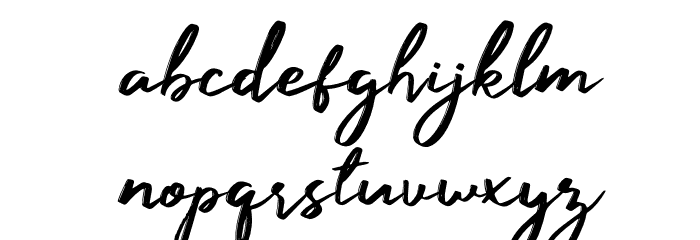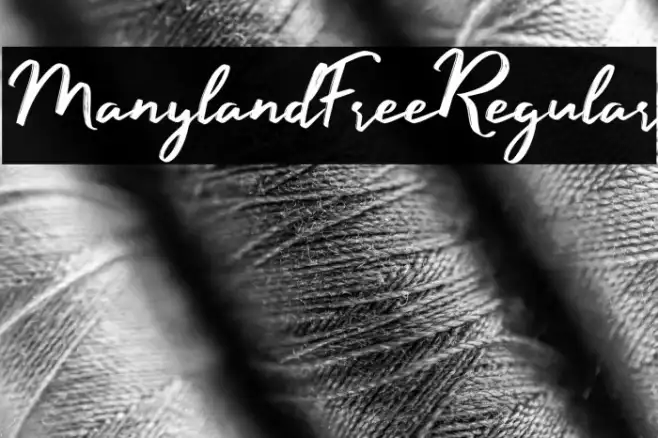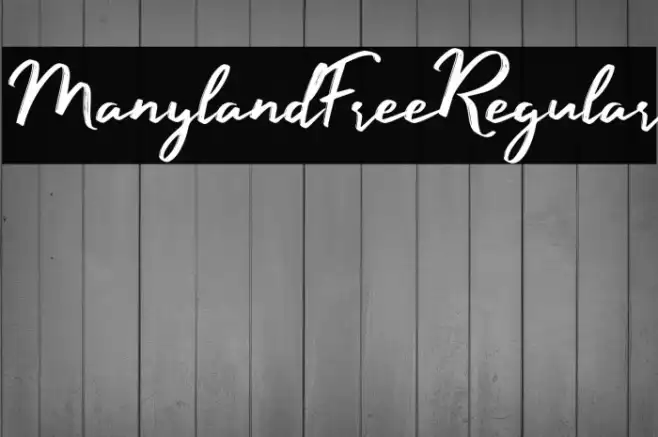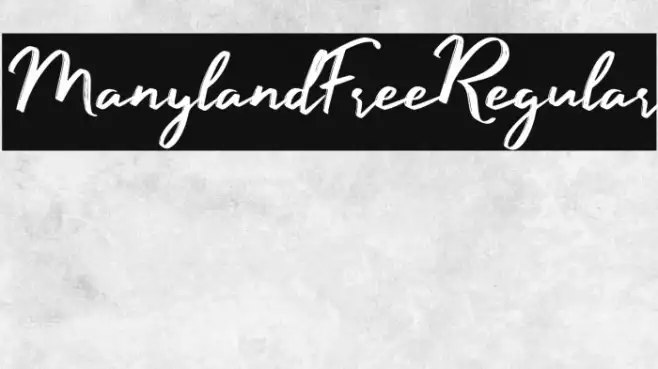
ManylandFree-Regular Font
This font features a dynamic and expressive script style, characterized by its fluid and elegant strokes. The uppercase letters exhibit a bold and confident presence, while the lowercase letters maintain a graceful and flowing appearance. The overall design is reminiscent of handwritten calligraphy, with a modern twist that adds a touch of sophistication. The characters are well-balanced, with a slight slant that enhances the cursive feel. This font is perfect for projects that require a personal and artistic touch, such as invitations, branding, and creative designs.
A dynamic script font with fluid, elegant strokes and a modern calligraphic style.
- Proposed Projects: Ideal for wedding invitations, branding, logos, and artistic projects that require a personal touch.
- Use Case: Logos, Invitations, Artistic designs